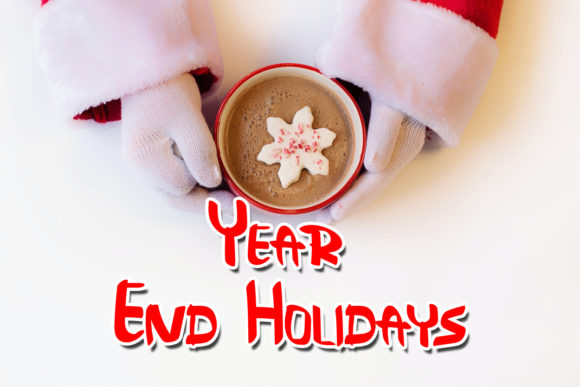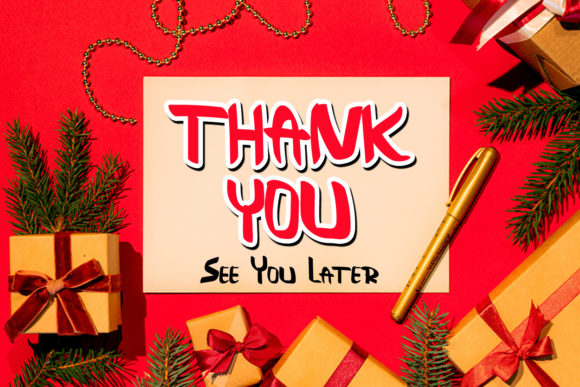
Christmas December Font: The Perfect Addition to Your Holiday Designs
Are you looking for a font that will make your holiday designs stand out? Look no further than the Christmas December Font! This bold and cute display font is perfect for adding a touch of festive fun to your creative projects. In this article, we’ll take a closer look at the Christmas December Font and explore how you can use it to make your designs shine.
What is Christmas December Font?
Christmas December Font is a bold and playful display font that’s perfect for holiday designs. Its unique and quirky style makes it stand out from more traditional fonts, and its bold lines and cute details are sure to grab attention. Whether you’re designing holiday cards, gift tags, or social media graphics, this font is sure to add a touch of festive fun to your projects.
Key Features of Christmas December Font
So, what makes Christmas December Font so special? Here are just a few of its key features:
- Bold and playful style: This font is perfect for making a statement. Its bold lines and playful details make it stand out from more traditional fonts.
- Cute details: The Christmas December Font is full of cute details, from the tiny snowflakes to the holly leaves. These details add a touch of festive fun to your designs.
- Easy to read: Despite its bold and playful style, the Christmas December Font is still easy to read. This makes it perfect for use in titles, headings, and other applications where you want to grab attention.
- Versatile: The Christmas December Font is versatile and can be used in a wide range of designs, from holiday cards to gift tags, social media graphics, and more.
How to Use Christmas December Font in Your Designs
So, how can you use the Christmas December Font in your designs? Here are a few ideas to get you started:
- Holiday cards: Use the Christmas December Font to create eye-catching holiday cards that will stand out in a crowded mailbox.
- Gift tags: Add a personal touch to your gifts with custom gift tags featuring the Christmas December Font.
- Social media graphics: Use the Christmas December Font to create festive social media graphics that will grab attention and spread holiday cheer.
- Party invitations: Create custom party invitations featuring the Christmas December Font to set the tone for your holiday party.
Tips for Using Christmas December Font
Here are a few tips for using the Christmas December Font in your designs:
- Use it sparingly: While the Christmas December Font is bold and playful, it can be overwhelming if used too much. Use it sparingly to add a touch of festive fun to your designs.
- Pair it with complementary fonts: Pair the Christmas December Font with complementary fonts to create a cohesive look.
- Experiment with colors: Don’t be afraid to experiment with different colors to find the perfect combination for your design.
The Christmas December Font is a bold and cute display font that’s perfect for adding a touch of festive fun to your holiday designs. With its unique and quirky style, cute details, and versatility, it’s the perfect addition to your creative projects. Whether you’re a designer, crafter, or simply someone who loves the holiday season, the Christmas December Font is sure to bring a smile to your face. So why not give it a try and see how it can make your designs stand out?